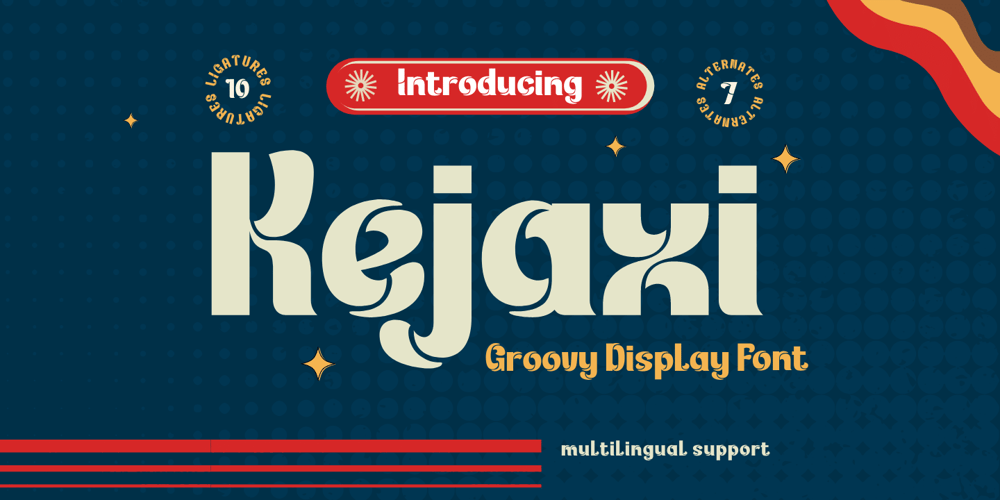
Kejaxi Font Family was designed by Rozikan and published by Twinletter. Kejaxi contains 1 styles and family package options. Kejaxi font groovy is a psychedelic-inspired typeface. It has a fun and bold shape, perfect for all your creative projects that need a retro style. This Groovy font is a free display font with bold and geometric shapes, perfect for branding and editorial design. This font is also ideal for product packaging or even just to add a little flair to your design work. Kejaxi is a contemporary font with geometric shapes and accuracy that will add a touch of elegance to any design.So stop procrastinating and incorporate it into your designs right away!What’s Included : Standard glyphs Iso Latin 1 Simple installations We highly recommend using a program that supports OpenType features and Glyphs panels like many Adobe apps and Corel Draw, so you can see and access all Glyph variations. PUA Encoded Characters – Fully accessible without additional design software. Fonts include Multilingual support